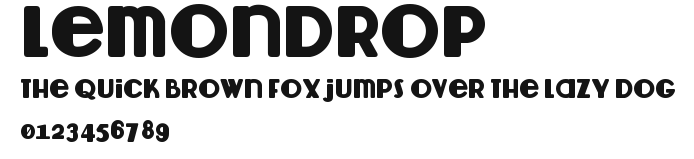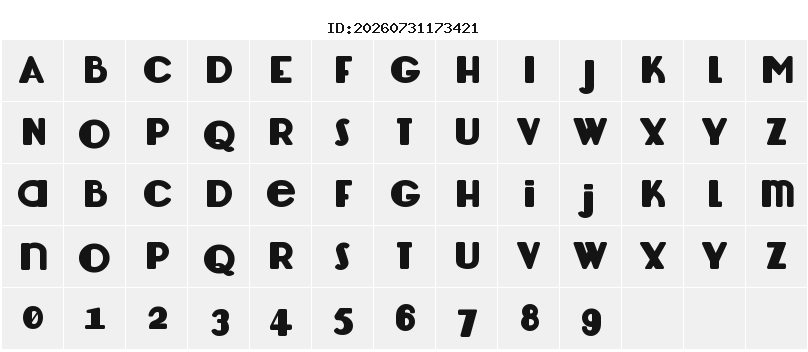
Lemondrop Preview
• Font Name: Lemondrop
• Designer: Lauren Thompson
About Lemondrop.ttf
Lemondrop.ttf is a modern, elegant sans-serif font designed for ultimate readability and visual harmony. Perfect for branding, headlines, web design, and print materials.